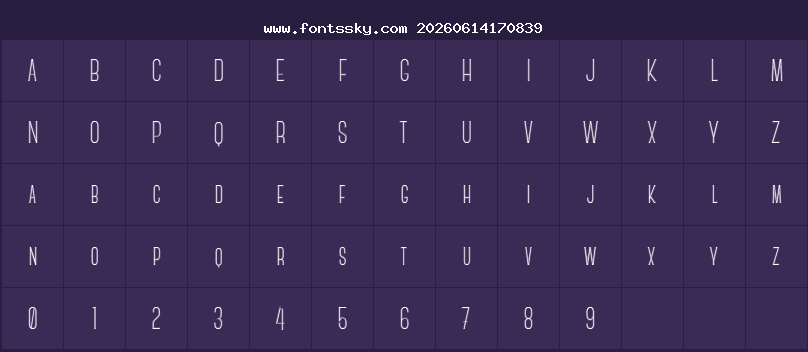
Canter Outline Preview
• Font Name: Canter Outline
• Full Font Name: Canter Outline
• PostScript Name: Canter-Outline
• Manufacturer: Christopher J. Lee
About Canter Outline.ttf
Canter Outline.ttf is a modern, elegant sans-serif font designed for ultimate readability and visual harmony. Perfect for branding, headlines, web design, and print materials.